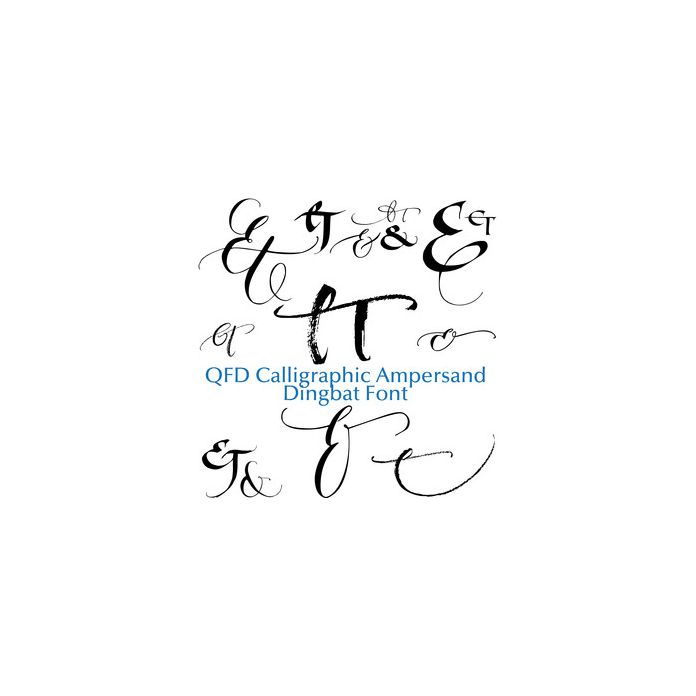
The ampersand comes from joining the letters “e” and “t”, a ligature of et, Latin for “and”. For creative ideas, to ask questions please visit http://www.quietfiredesign.ca and blog http://quietfiredigital.blogspot.ca/